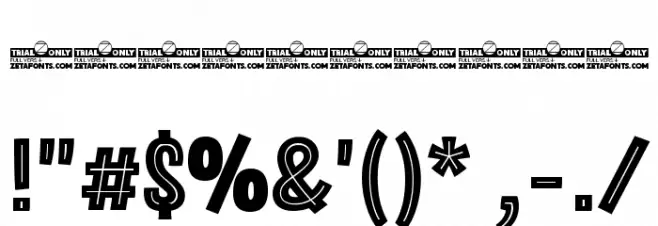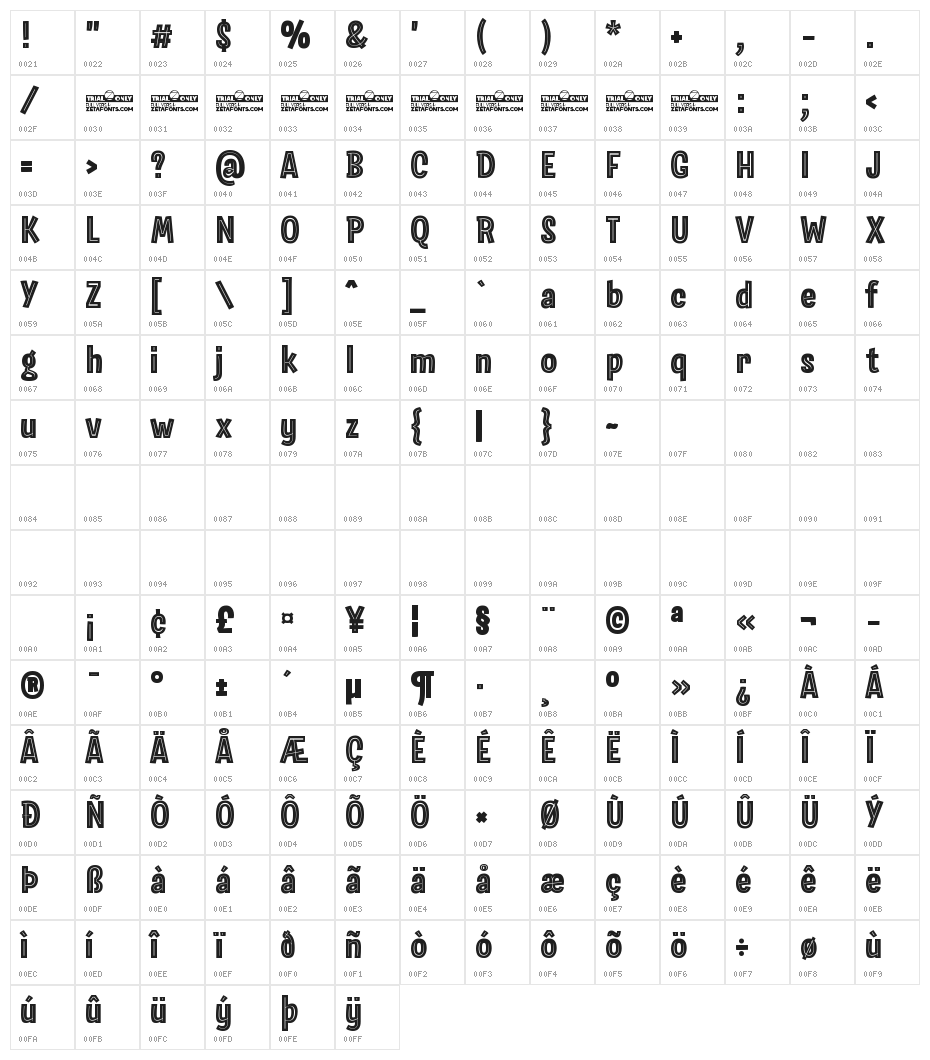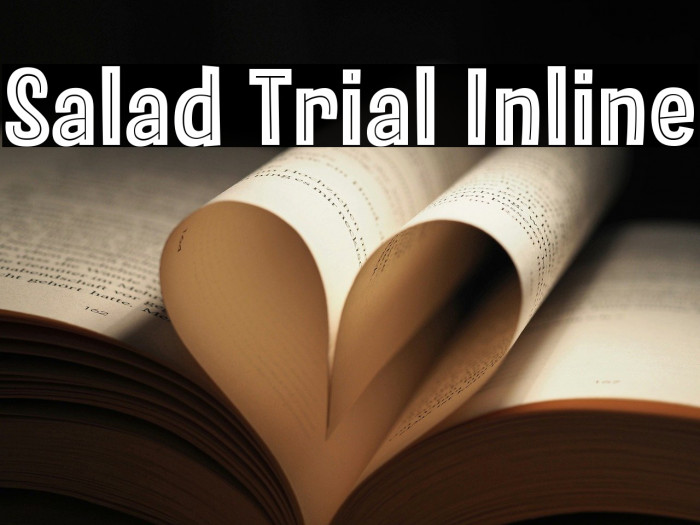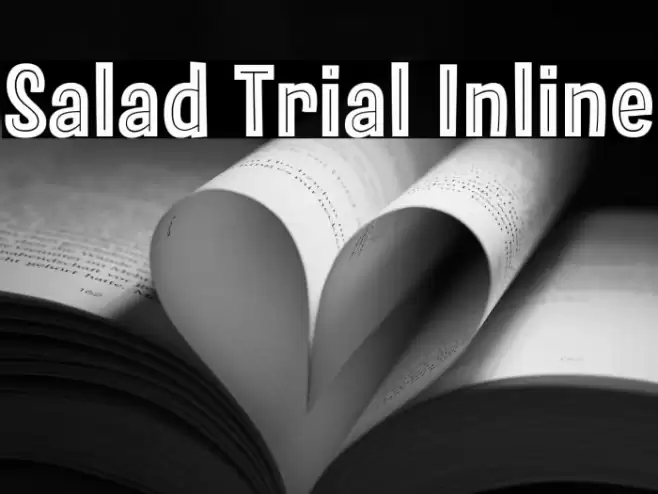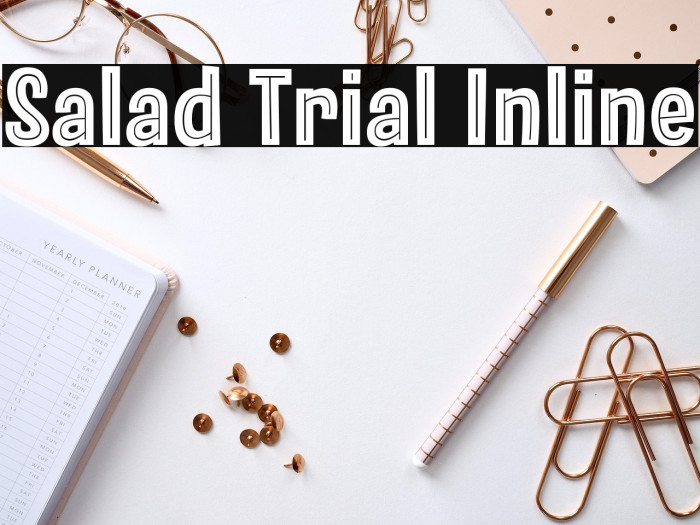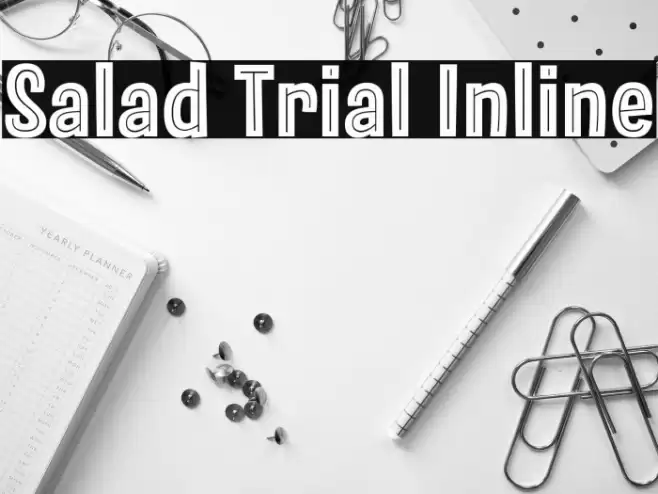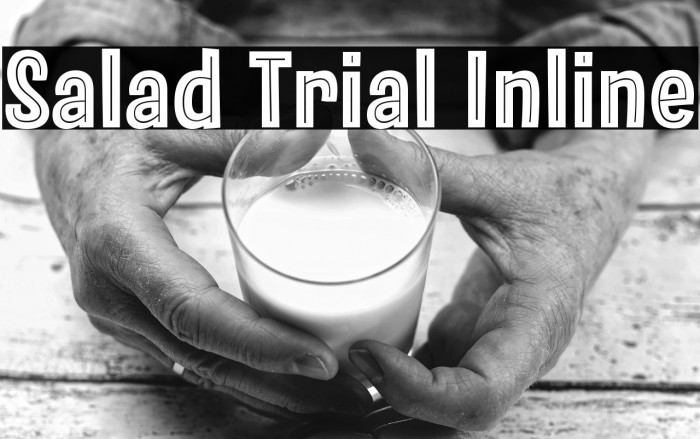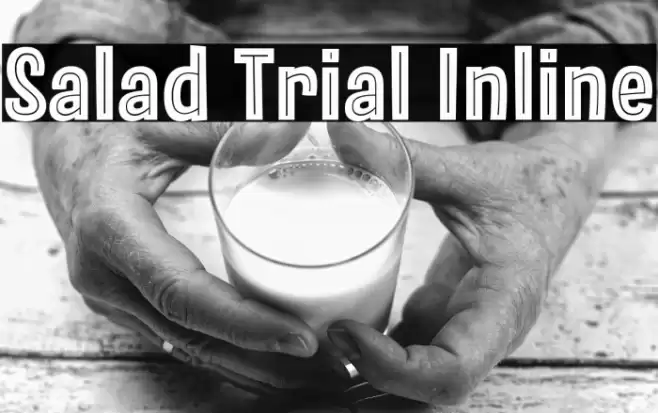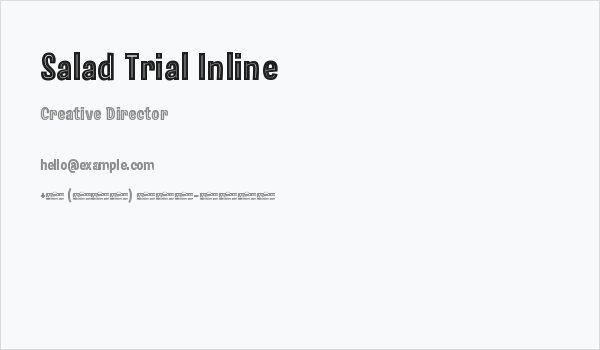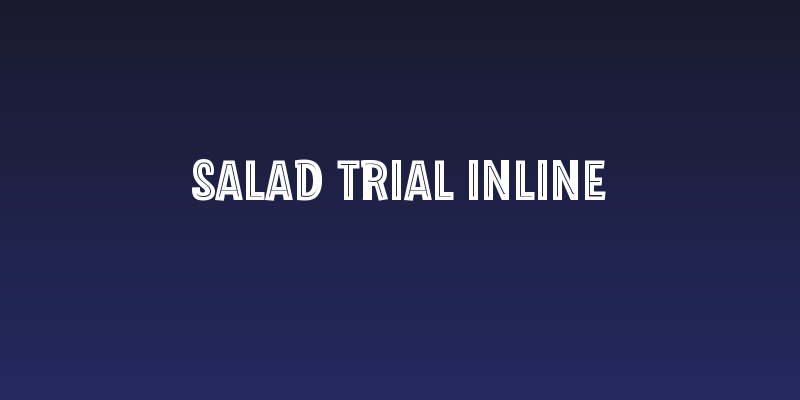
Salad Trial Inline Font
Salad Trial Inline Description
This font features a bold and playful design with a distinct inline style that adds depth and character to each letter. The uppercase and lowercase letters maintain a consistent width, giving the font a balanced appearance. The inline detail creates a unique visual effect, making it stand out in any design. The characters are well-spaced, ensuring readability while maintaining a strong presence. The font includes a full set of uppercase and lowercase letters, numbers, and a variety of special characters, making it versatile for various design needs.
| Proposed Projects | Ideal for posters, headlines, branding, and any project that requires a bold and distinctive typeface. |